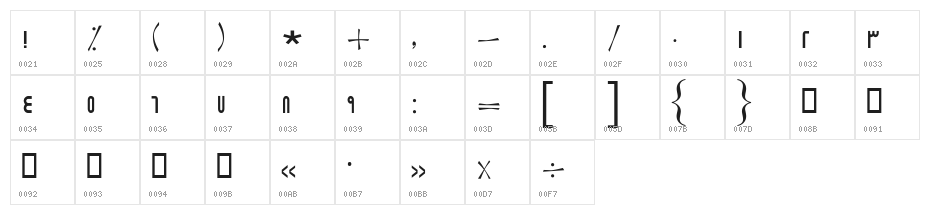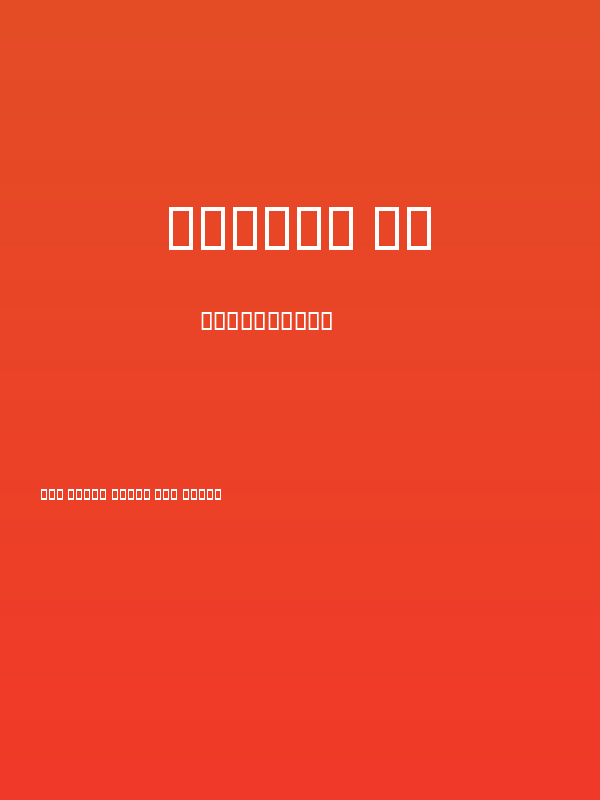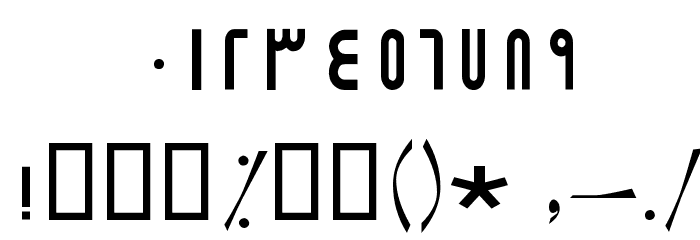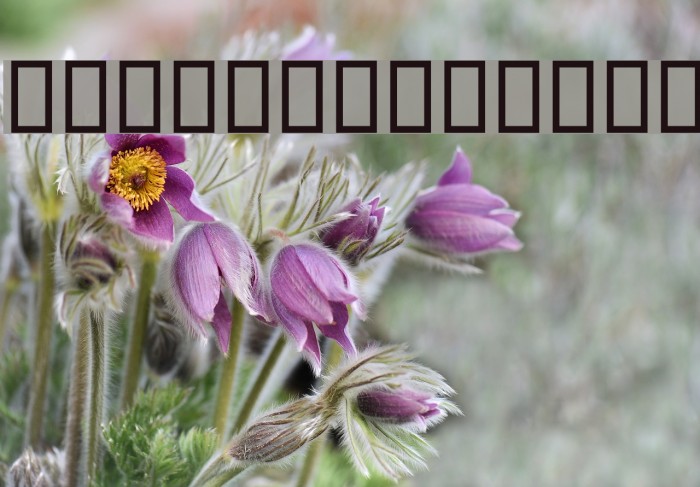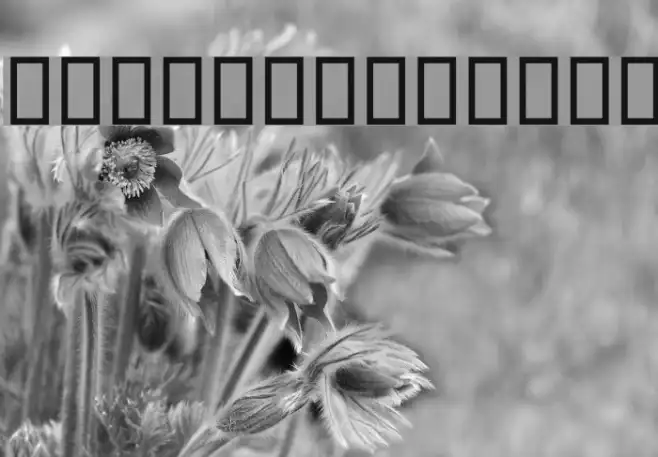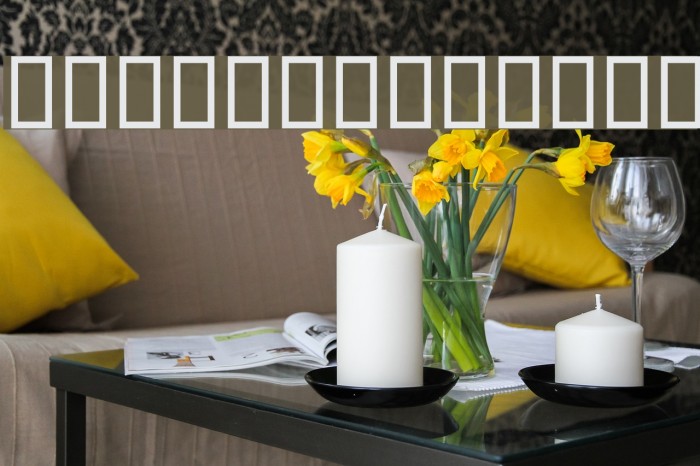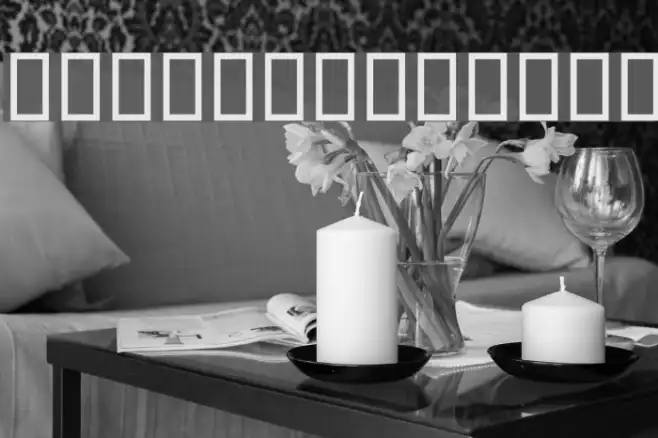
Modern II Font
Modern II Description
This font features a modern and sleek design with clean lines and a geometric structure. The characters are well-defined, with a consistent stroke width that gives it a uniform appearance. The numerals are distinct and easy to read, while the special characters maintain the same modern aesthetic. The overall look is minimalistic, making it suitable for contemporary design projects. The font's style is versatile, allowing it to be used in various contexts, from digital interfaces to print media.
گالری فانت فارسی پژوهش آريانا - only compatible with Farsi and Arabic